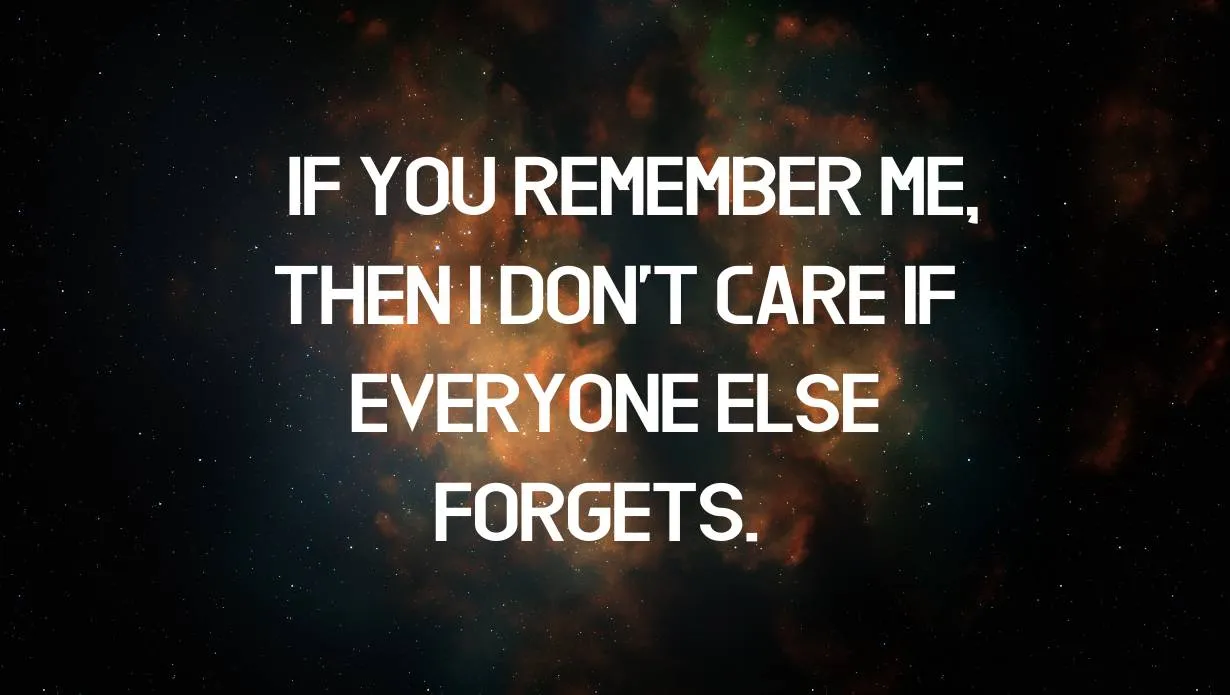
Begal font is a typeface that was designed by Sambogo Creative to beat the Top-notch Sans serif font like Ariel.
There are more than one million downloads of this Font. This typeface is designed to give a unique aesthetic look to stand out from other fonts. It pairs well with the Silka font. It is available in regular and bold weights.
The exquisite look of this Sans Serif typeface can be utilized for Logo design, banners, social media posts, advertisements, magazines, titles, headlines, books, newspapers, and the list goes on. It is available in Open Type and True Type.
Begal Typeface is a great choice for any project that requires a clean and modern typeface. This Sans Serif can be used for website headers.
A lot of brands and companies are utilizing this typeface to build eye-catching Logos and for aesthetic social media marketing campaigns. It is available in two weights regular and bold.
There are numerous graphic designers in the market who also prefer to use this Typeface for creating elegant business cards, branding, wedding cards, marketing Ads campaigns, T-Shirt designs, Posters, and Flyers.
The good readability score of this typeface makes it perfect for both print and digital. It is suitable for all types of operating systems
This font is used in many YouTube Thumbnails. You can apply it in other countless fields which include social media posts, magazines, Novels, Book Cover pages, and newspapers.
What is the cloned version of Begal Font called?
The cloned version of this typeface is Gihun Font the character appearance are very similar to each other.